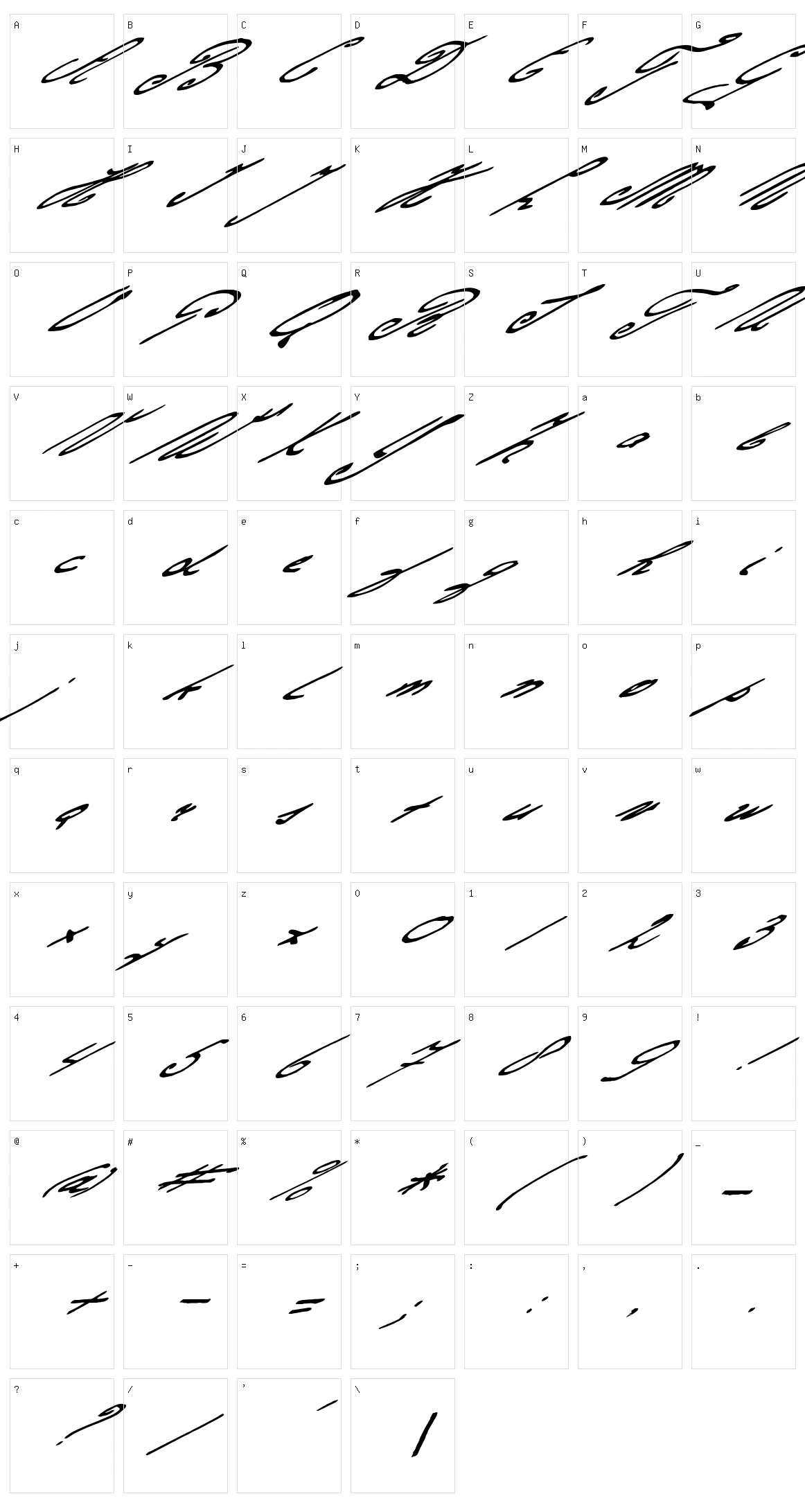
The free font Gerards Gold is carefully designed by Samyuli, showcasing a thoughtful balance of creativity and usability and falls under the Script font style. When you download the ZIP file, it contains only 752.22 KB of font files, making it lightweight and quick to download. Please review the license details below to understand permitted usage and distribution rights. If license information is not available, we recommend using this font for personal projects only or contacting the author directly for commercial usage permissions.